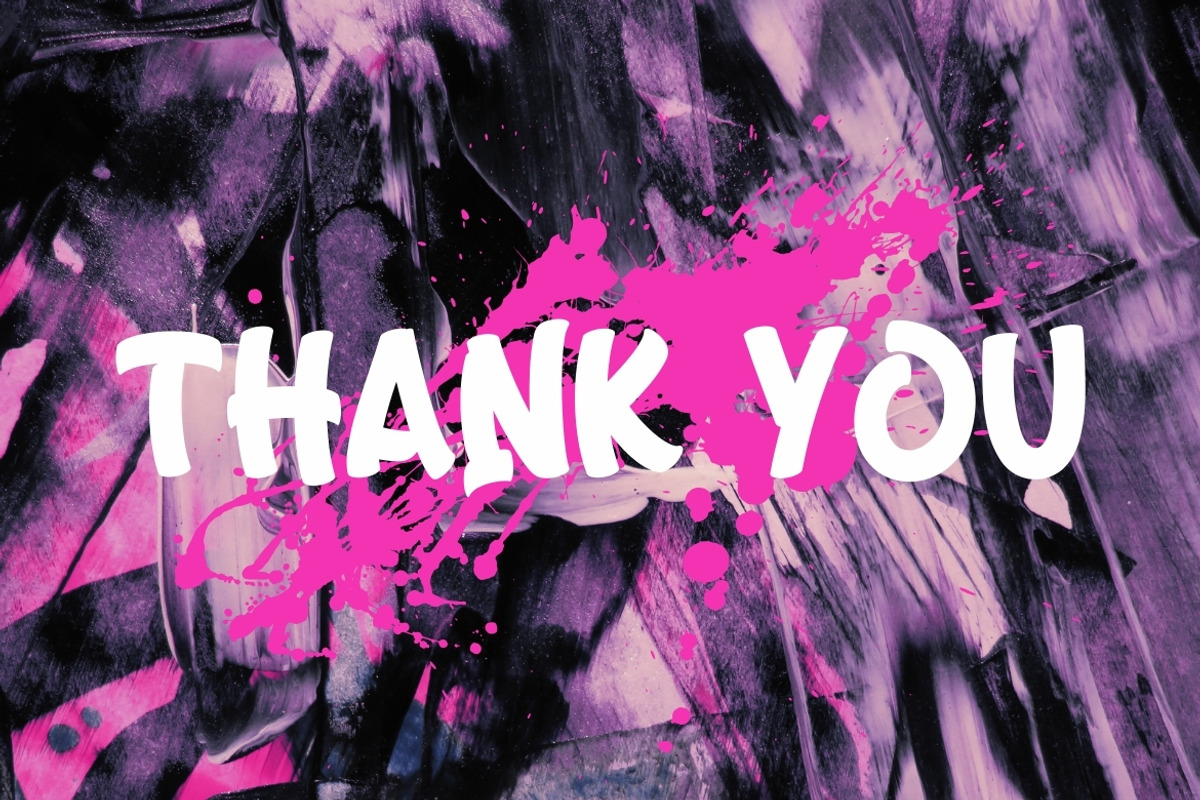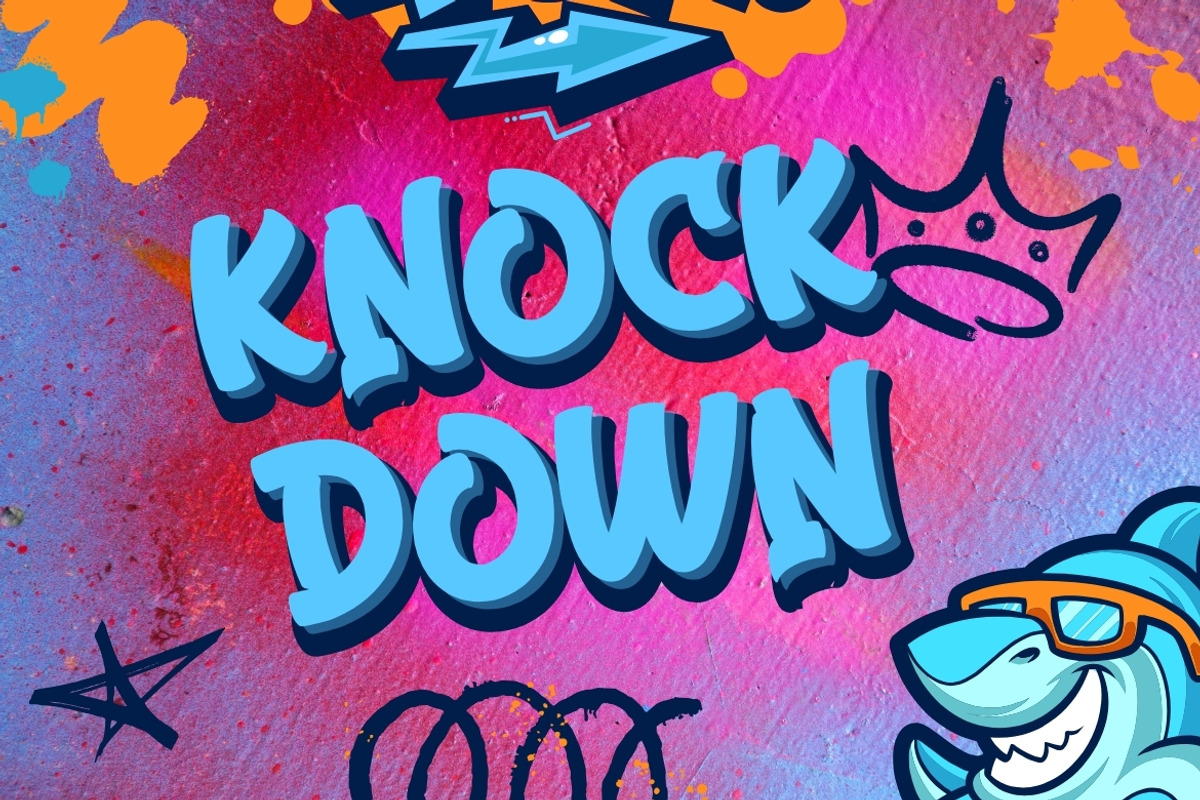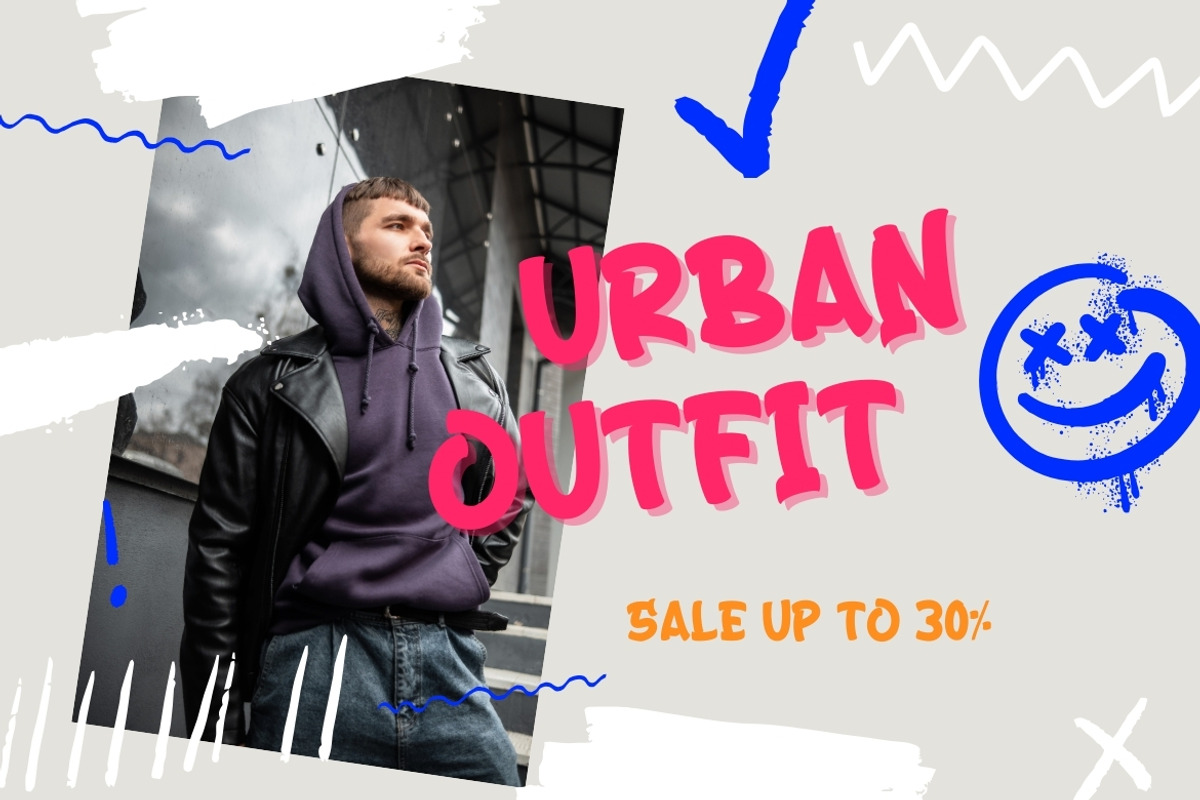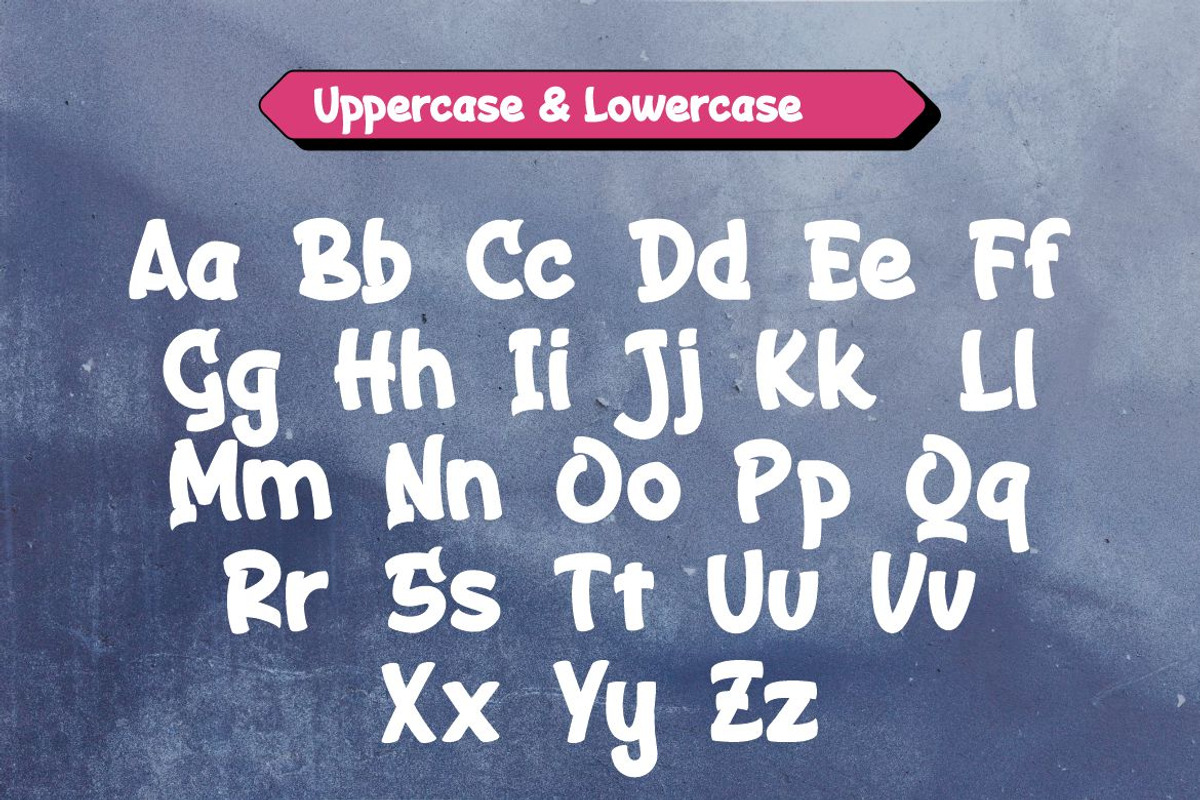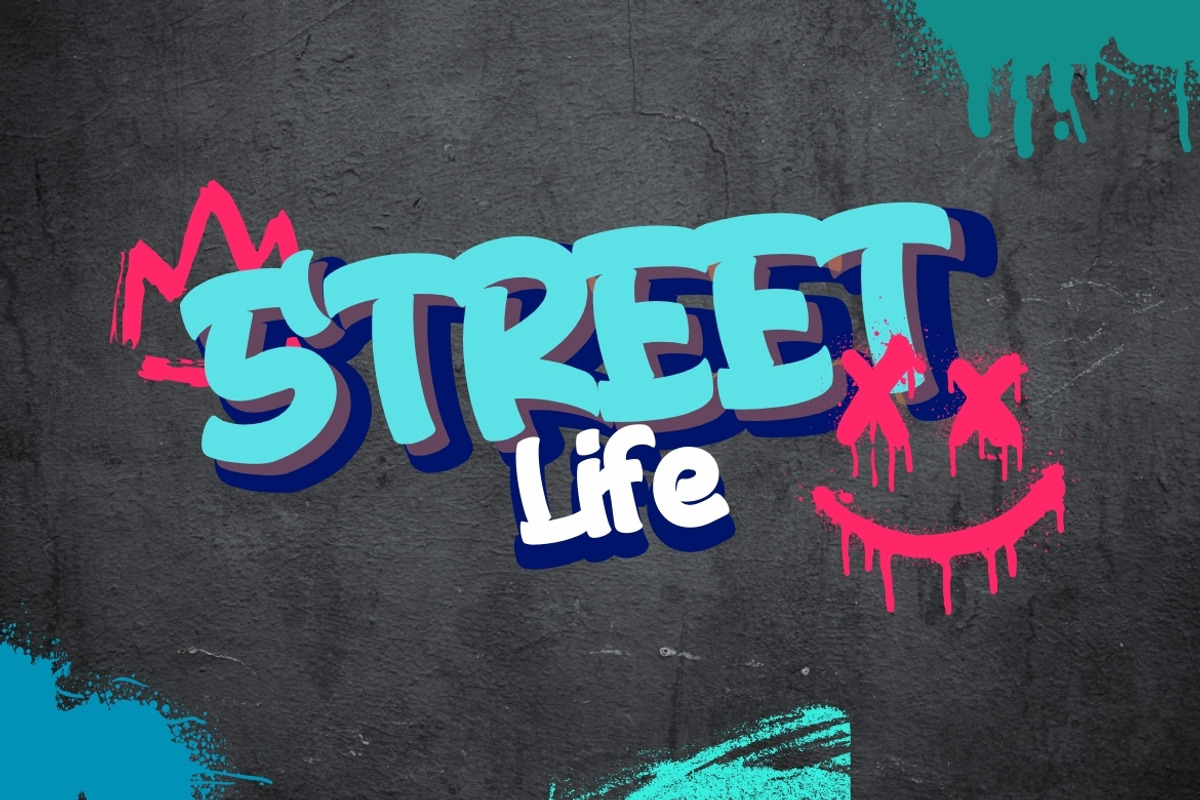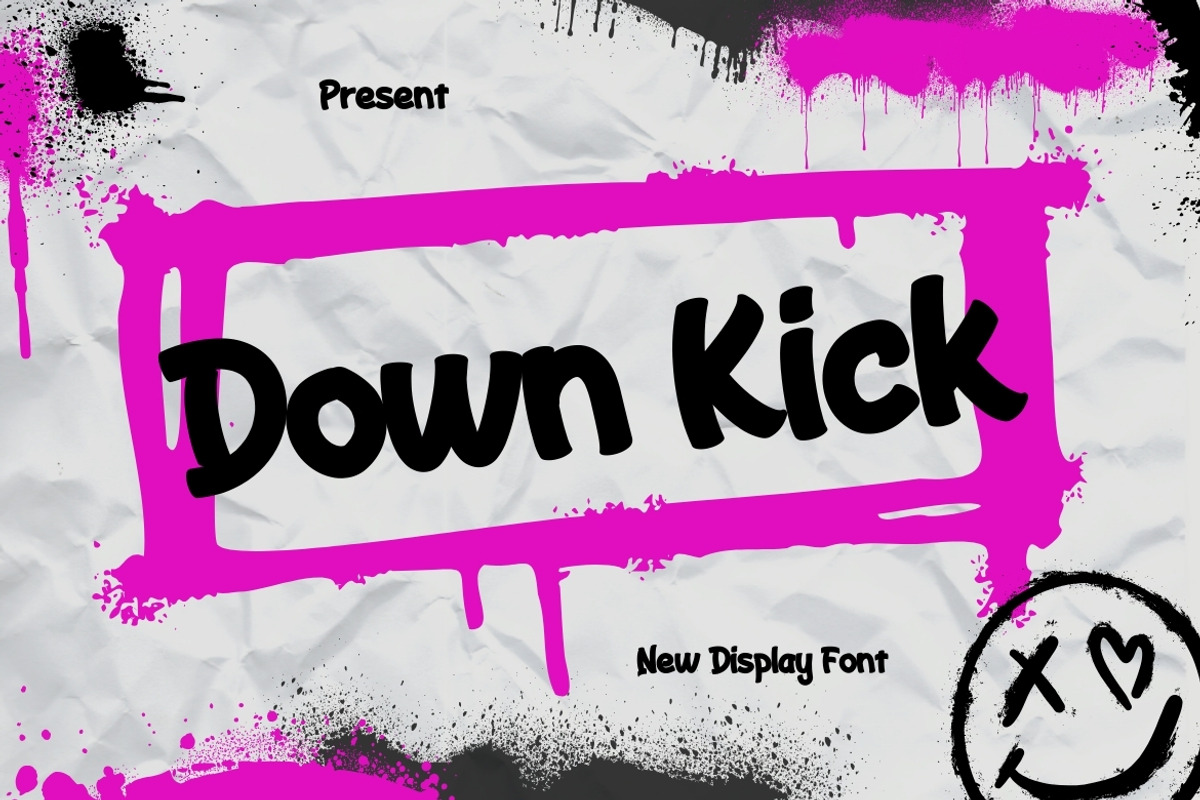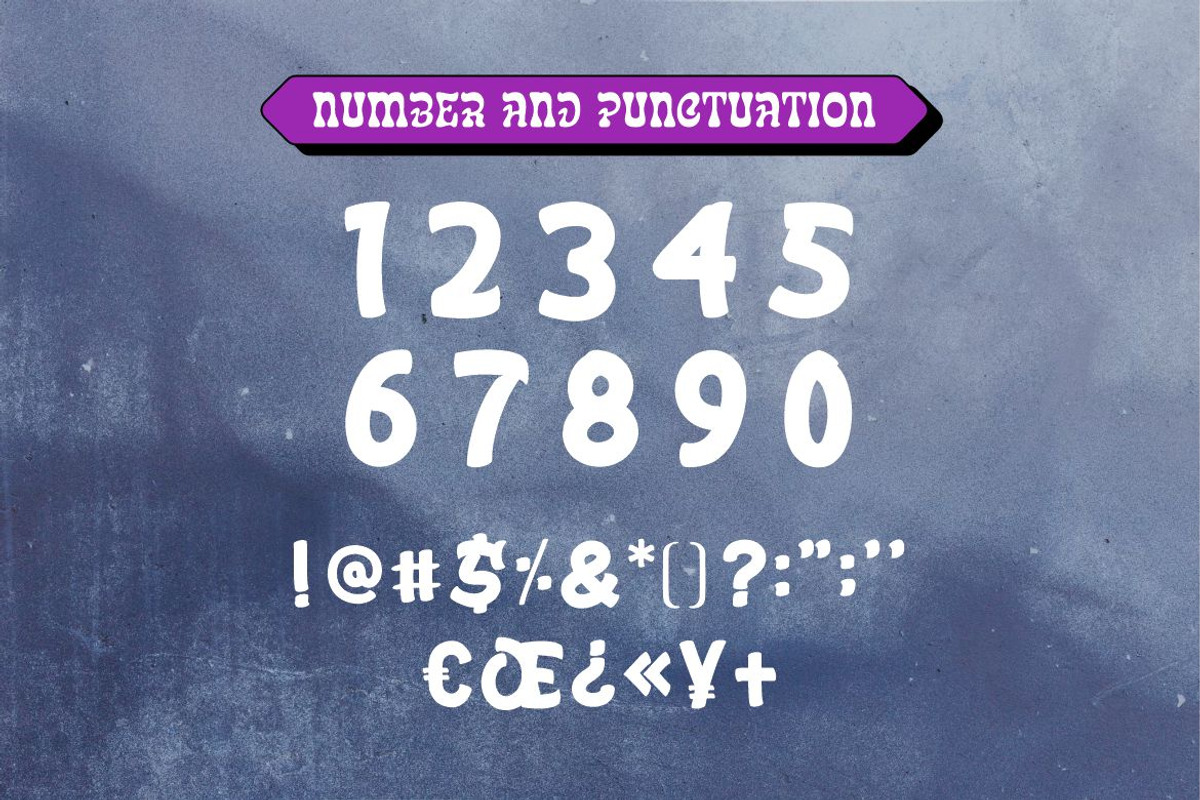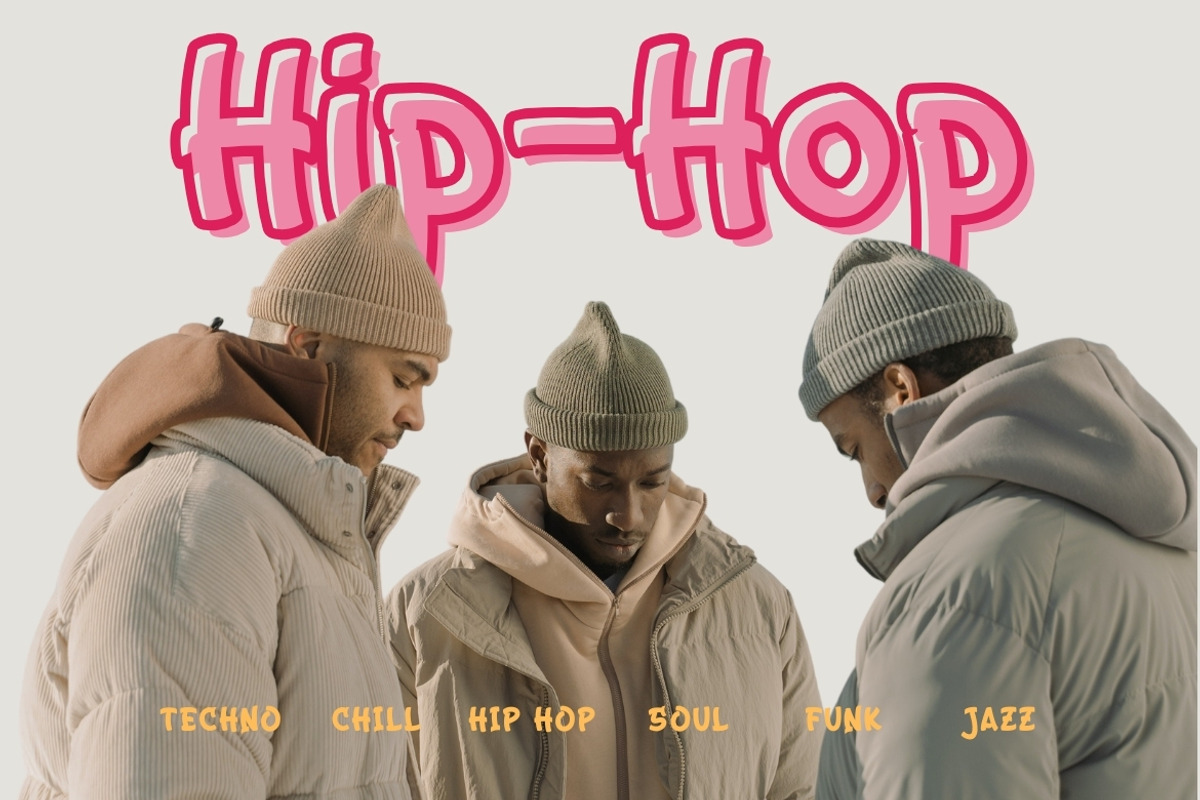
Down Kick
Down Kick is from Tagging Graffiti with urban lifestyle inspiration. Featuring an extra swash font, you can make your project more attractive.
This style is bolder, easier to read, and is perfect for titles, logos, product packaging, branding projects, magazines, social media, and even just to express words above the background.